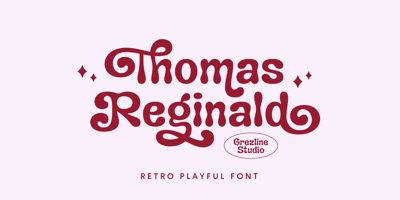
Thomas Reginald
Thomas Reginald font
Thomas Reginald Font Family was designed by Akhmad Reza Fauzi and published by Grezline Studio. Thomas Reginald contains 1 styles and family package options. Thomas Reginald is a retro, groovy, and playful font. This font is designed to captivate attention and delivers a funky and psychedelic vibe. Thomas Reginald font is perfect for a design that requires a playful accent. It is suitable for book covers, posters, packaging, merchandise, logotype, and much more.Feature :- Ligature & Alternate glyphs- Multilingual Language- Works on PC & Mac- Simple installations- Accessible in the Adobe Illustrator, Adobe Photoshop, Adobe InDesign, even works on Microsoft Word.Thank You